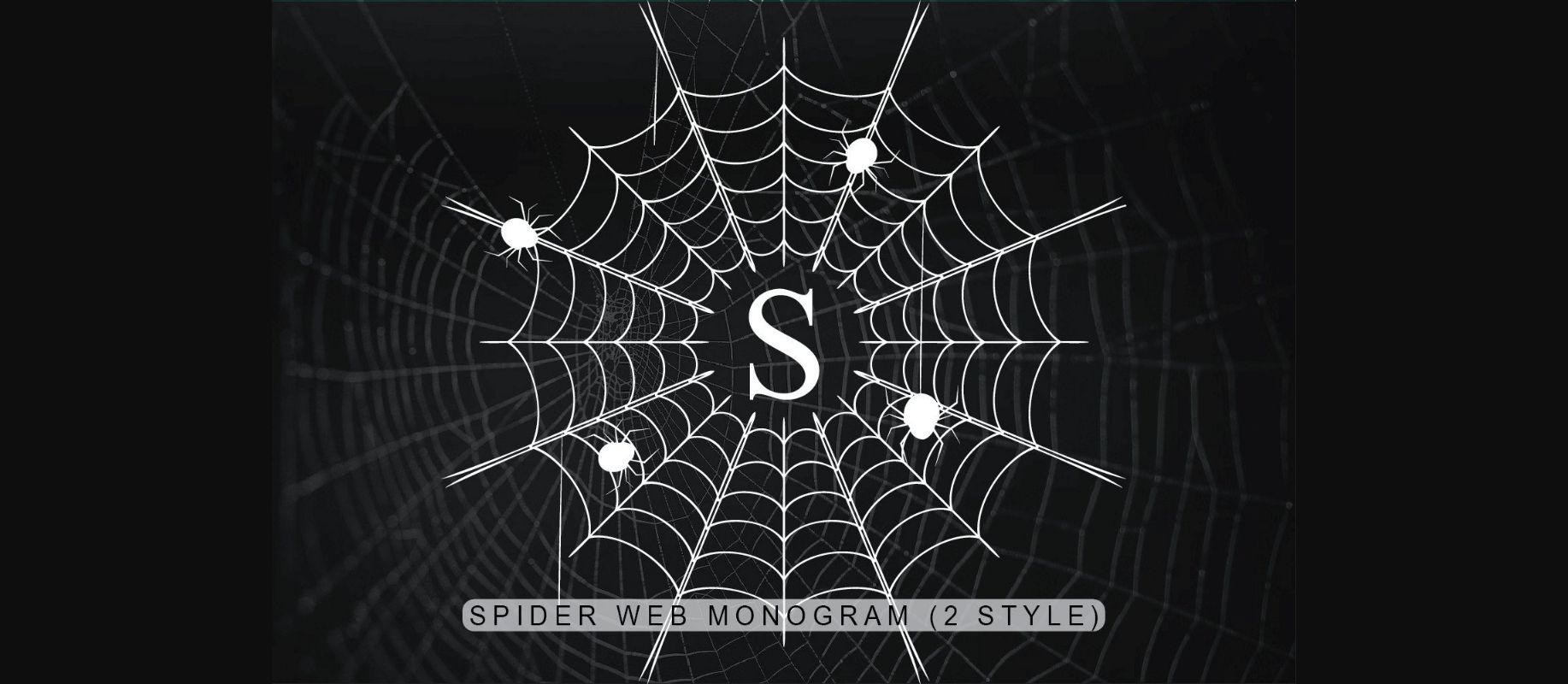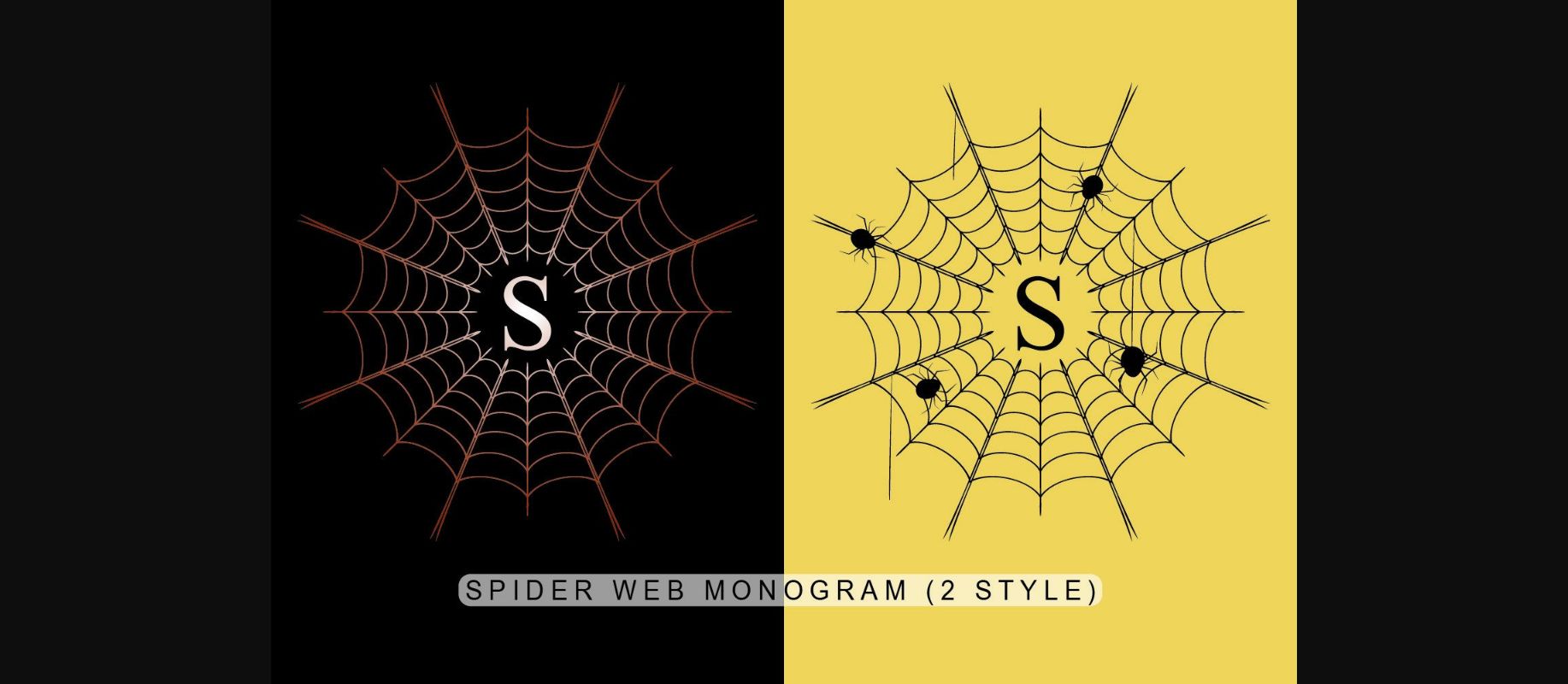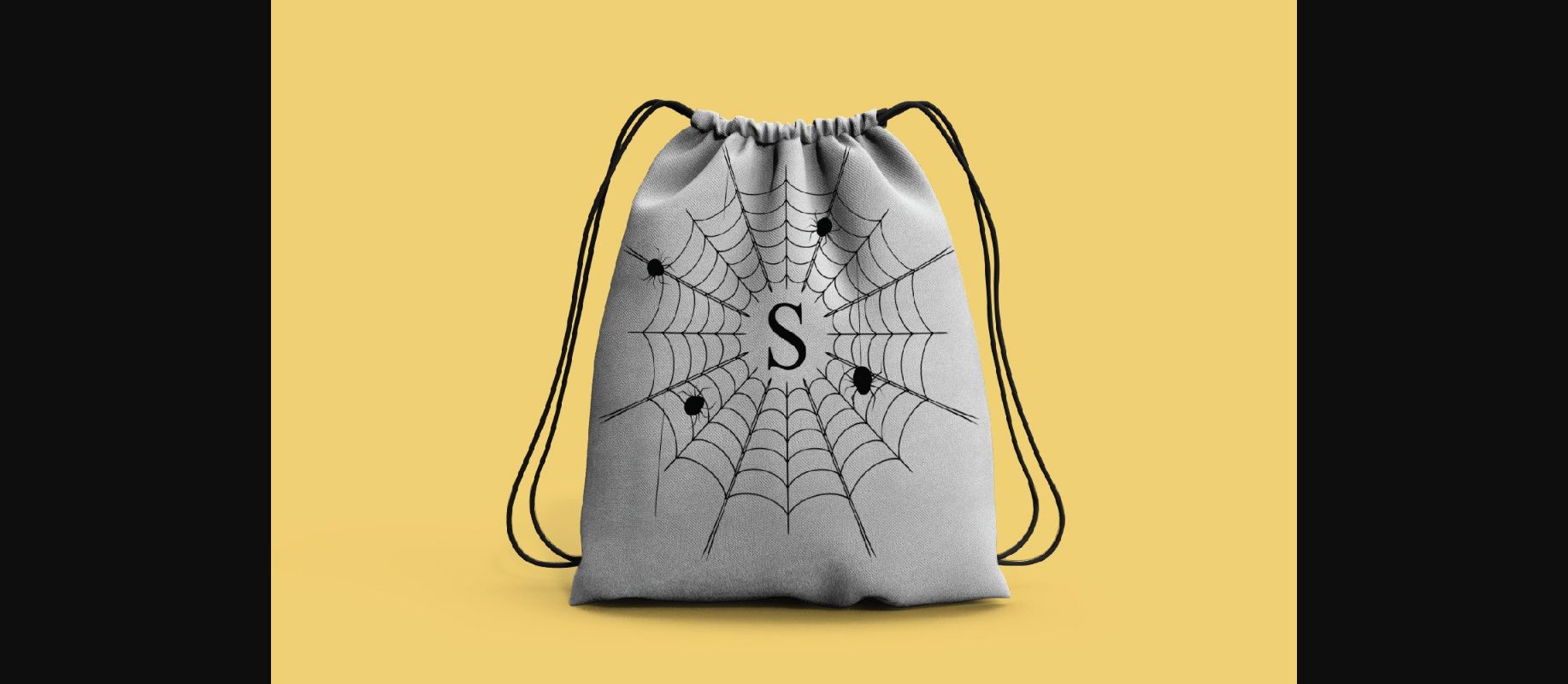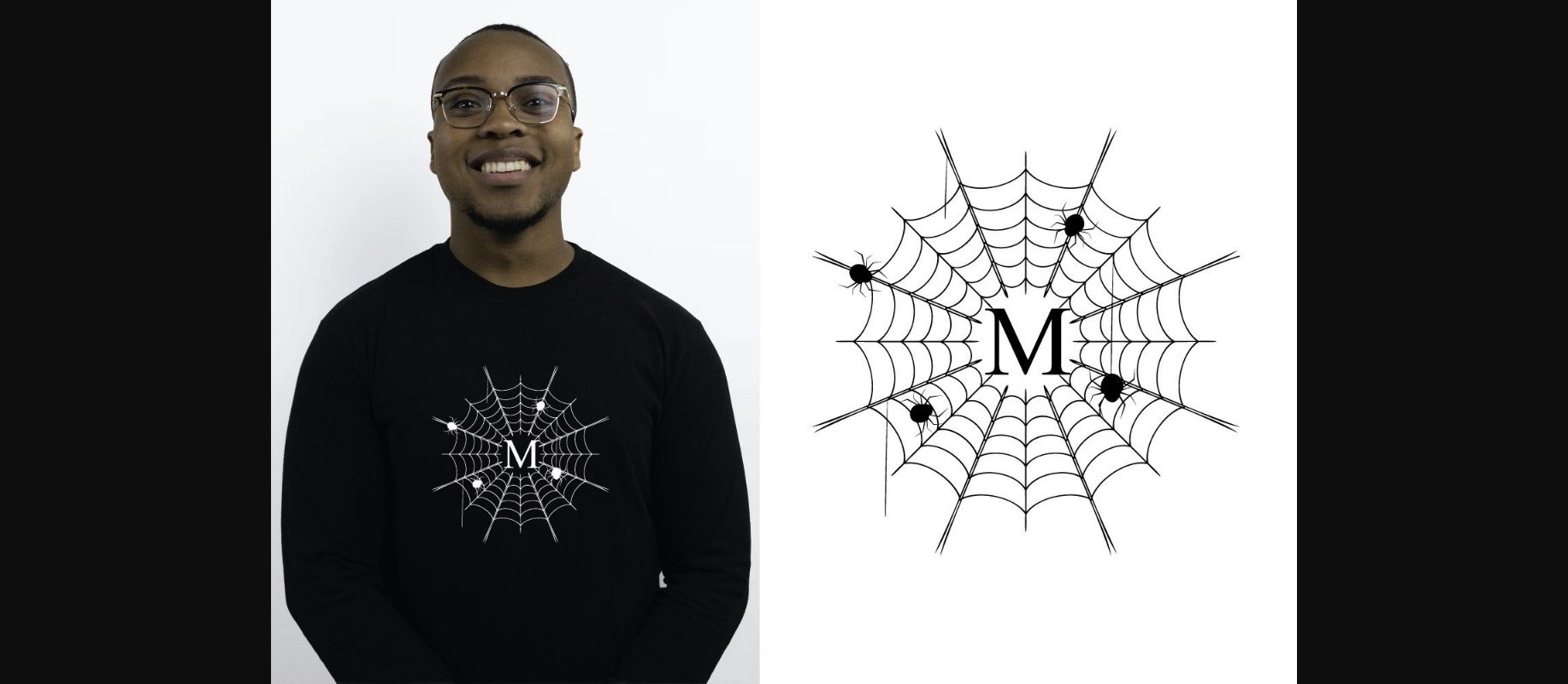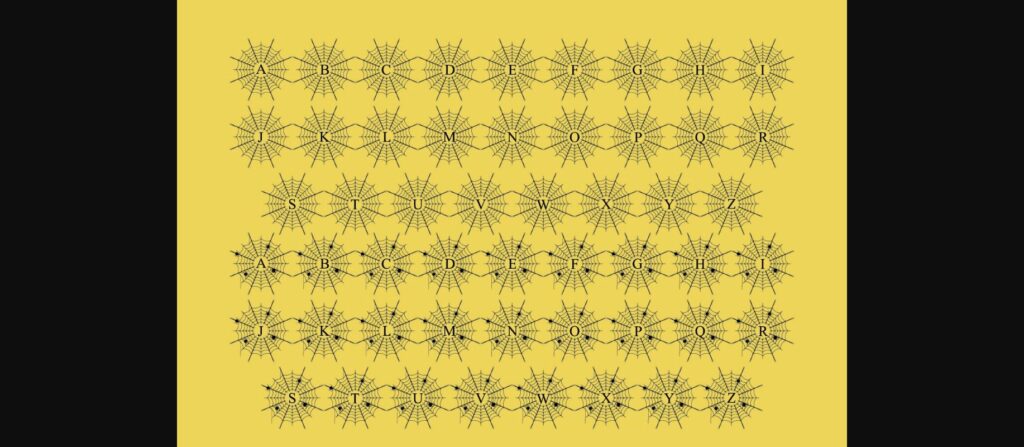
HomeDecorative FontsSpider Web Monogram Font Decorative Fonts Spider Web Monogram Font FacebookXPinterestWhatsApp 1 of 7 ... Spider Web Monogram Font Poster 2... Spider Web Monogram Font Poster 3... Spider Web Monogram Font Poster 4... Spider Web Monogram Font Poster 5... Spider Web Monogram Font Poster 6... Spider Web Monogram Font Poster 7... About Spider Web Monogram Font Spider Web Monogram is a cool and highly detailed decorative font. Add it to each of your Halloween designs and make them stand out! DOWNLOAD NOW People also explored Kiranya Font Mandala Vintage Minehead Rosterdam Signature Font Buffalo Font Bullshit Font Sweet Cat Font Christmas Font Hello Killyna Font 323 0 TagsSpider Web Monogram Font Previous articleDemon FontNext articleHalloween Rules Font LEAVE A REPLY Cancel reply Comment: Please enter your comment! Name:* Please enter your name here Email:* You have entered an incorrect email address! Please enter your email address here Website: Save my name, email, and website in this browser for the next time I comment. Personal Use Free December Christmas Personal Use Free Read more about this font Kredit Personal Use Free Read more about this font The Quick Personal Use Free Read more about this font ABC Personal Use Free Read more about this font BLOG Exploring Font Trends Shaping Communication in the Digital Era Fonts, like all design elements, are subject to trends. They play a crucial role in communicating a brand's personality,... Best Fonts for YouTube Videos: Make Your Thumbnails Stand Out The 10 Best Handwriting Fonts to Add Personality to Your Designs 5 Fonts That Will Dominate Design Trends in 2026